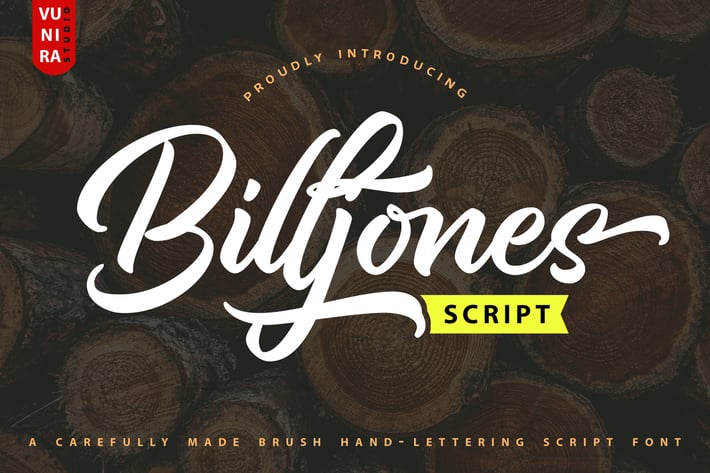
Billjones | Brush Hand-Lettering Script Font
Billjones | Brush Hand-Lettering Script Font with a calligraphy style, So beautiful on invitation like greeting cards, branding materials, business cards, quotes, posters, and more!